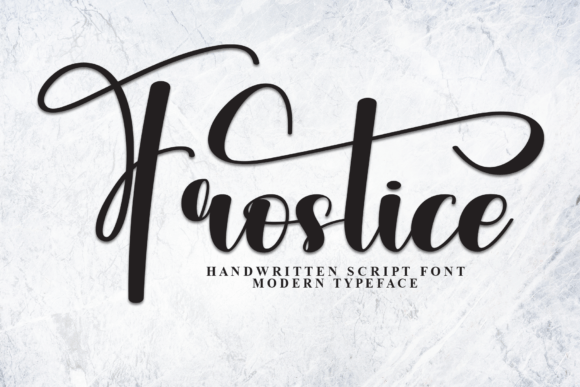
The Art of Expression: Unlocking the Power of Frostice Font
Have you ever found yourself scribbling down a creative idea in the middle of the night, only to be struck by the perfect font to bring it to life? That’s exactly what happened to many designers who discovered the Frostice Font – a stylish script font that exudes artistic flair and contemporary elegance. With its fluid brush strokes, dynamic curves, and expressive letterforms, it’s no wonder this font has captured the hearts of designers worldwide.
Whether you’re crafting a logo, designing an invitation, or creating social media graphics, the Frostice Font is the perfect tool to add a creative and sophisticated touch to your work. Its natural flow and vibrant character make it versatile and visually impactful, making it a valuable addition to any designer’s toolkit.
Frostice Font Key Features
- Unique Characteristics: The font features a unique blend of icy and frosty elements, with intricate details and subtle texture, giving it a visually striking appearance.
Frostice Font Review
Frostice Font is a unique and stylish font that I had the pleasure of working with. Here’s my honest review.
- The Frostice Font has a clean and modern design that’s perfect for creating a winter wonderland feel.
- The font is highly customizable, with a range of styles and weights to choose from.
- The font is highly legible, even at small sizes, making it perfect for digital use.
- The font may not be suitable for use in warm or tropical settings, as it’s heavily influenced by winter themes.
- The font’s unique design may not be to everyone’s taste, and some users may find it too playful or childish.
- The font is not as extensive as some other font families, with limited language support and no italic or bold-italic styles.
Overall, I was impressed with the Frostice Font’s unique design and high level of customization. While it may have some limitations, it’s a great choice for designers looking to create a winter wonderland feel in their designs.
Getting the Most Out of Frostice Font
To get the most out of Frostice Font, try the following tips:
– Use it for titles, headings, or emphasis to add a touch of elegance.
– Experiment with different font sizes and styles to create visual interest.
– Pair Frostice Font with other fonts to create a unique and cohesive look.
Frostice Font is perfect for:
– Luxury branding and marketing materials
– Creative and artistic projects
– Any design that requires a touch of sophistication and elegance.